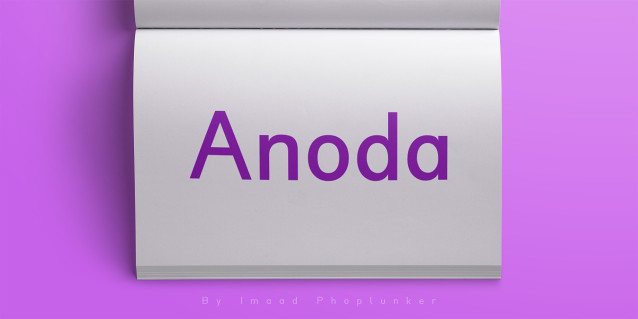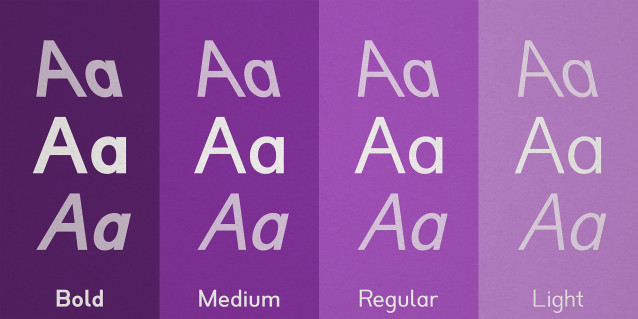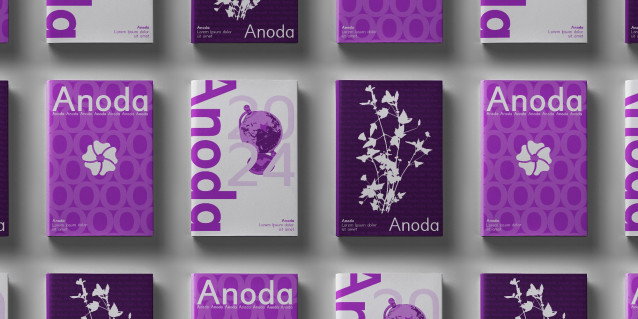
Anoda Font
Anoda Font is a humanist typeface that uses single-storey glyph designs for “a” and “g” characters for a cleaner, simpler look. It comes in 4 different weights, each with italic and backslant variants. Named after a genus of plants, Anoda takes inspiration from the simple yet beautiful flowers of its namesake, making for a versatile typeface that is suitable for headings, body text and more. With a character set of 370+ glyphs, Anoda fully supports over 90 languages.